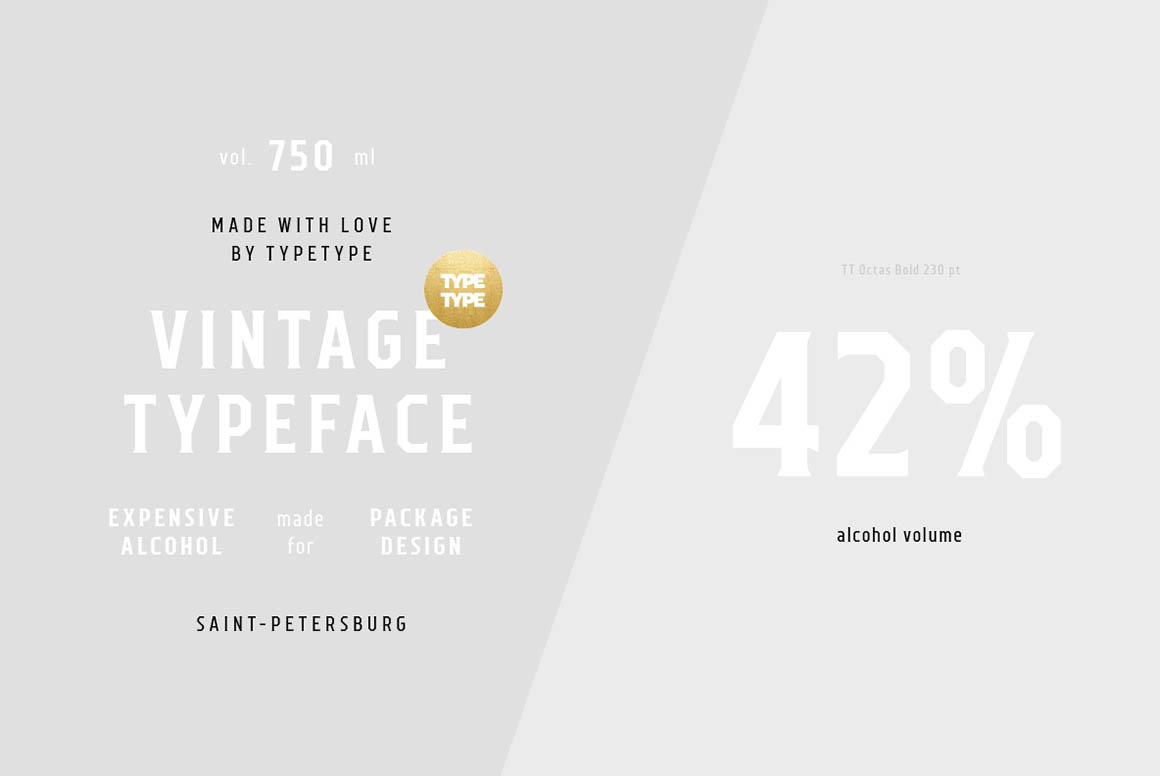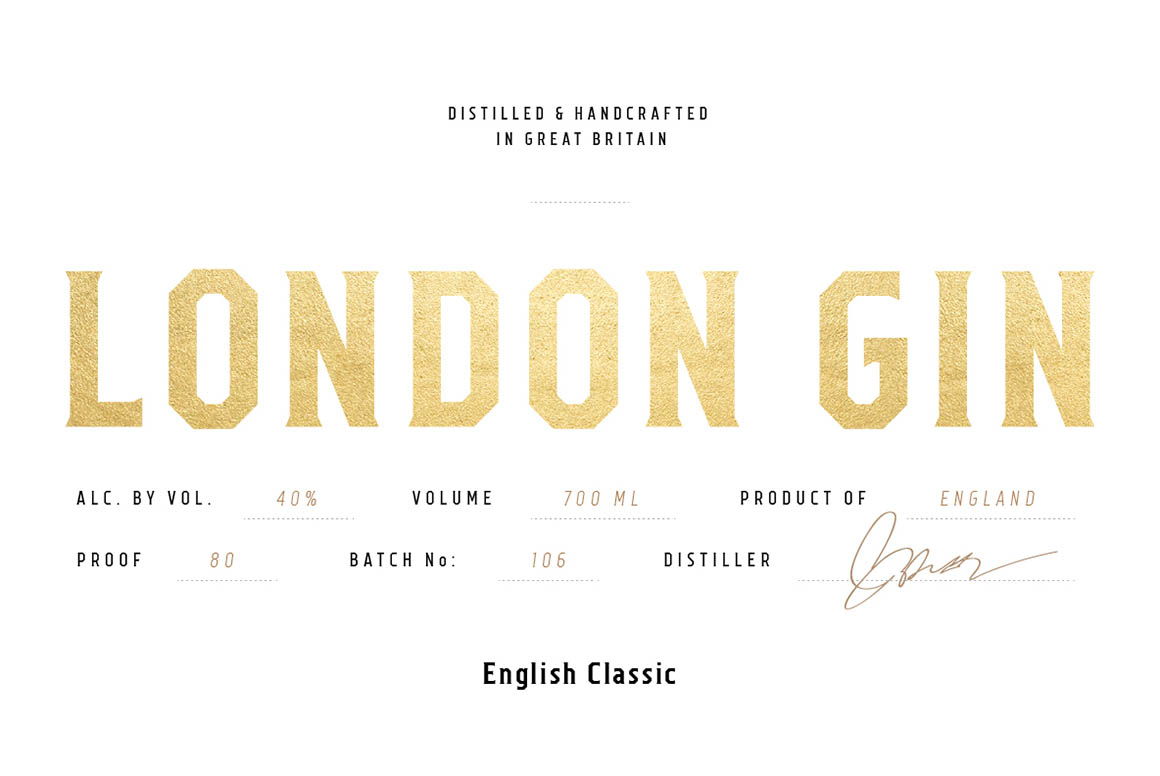
Octas Thin Italic – Free Font
This creative & vintage style thin italic font is from TYPETYPE. Great for your new creative projects. Download and enjoy 😉